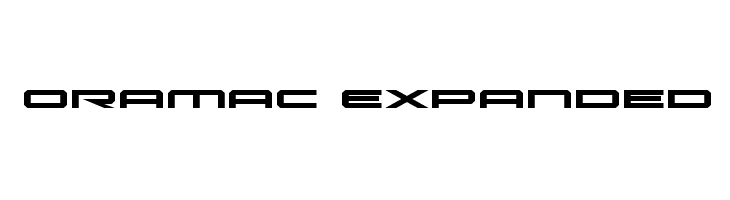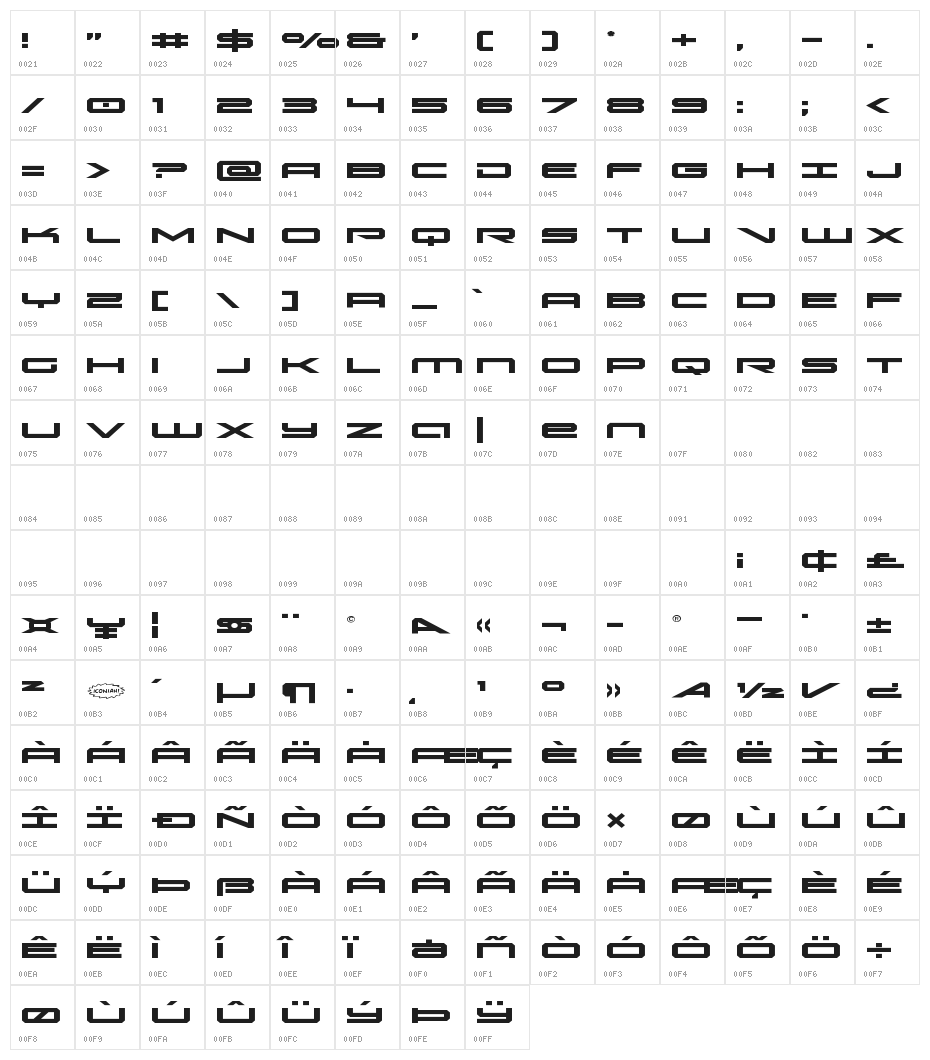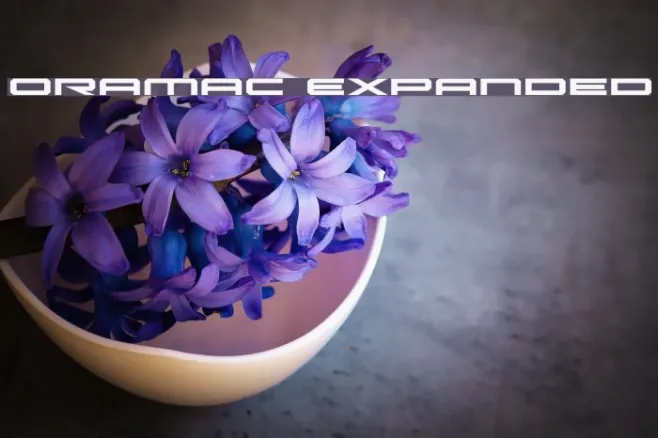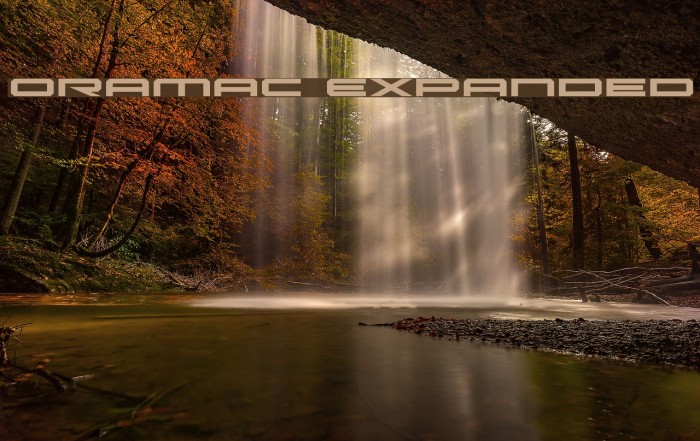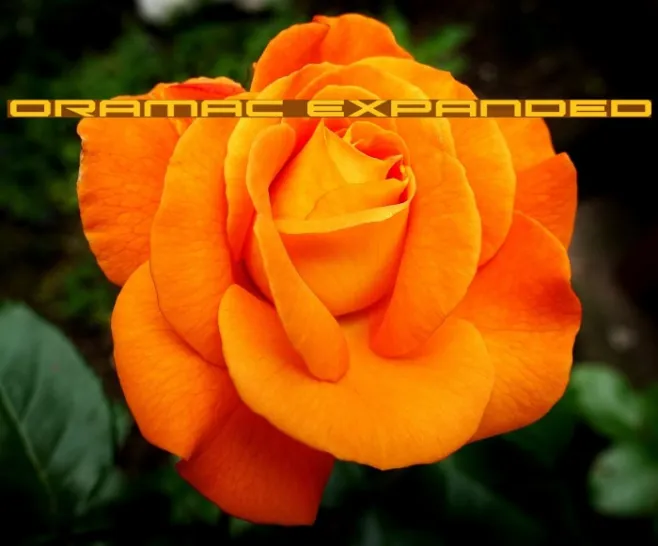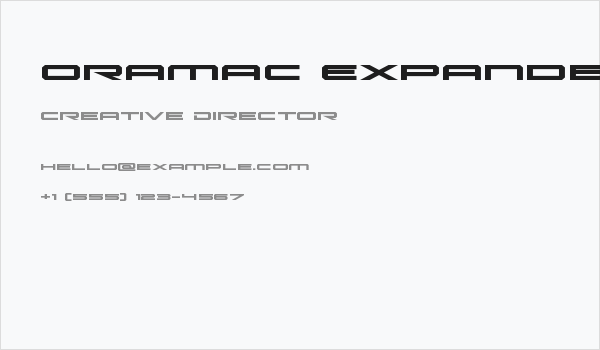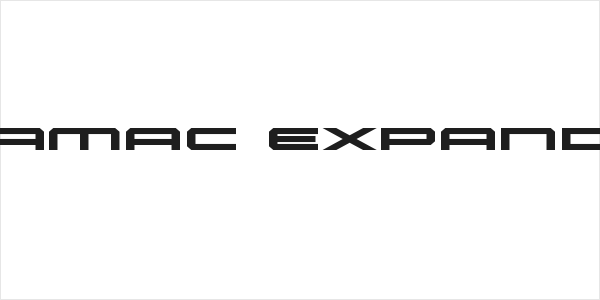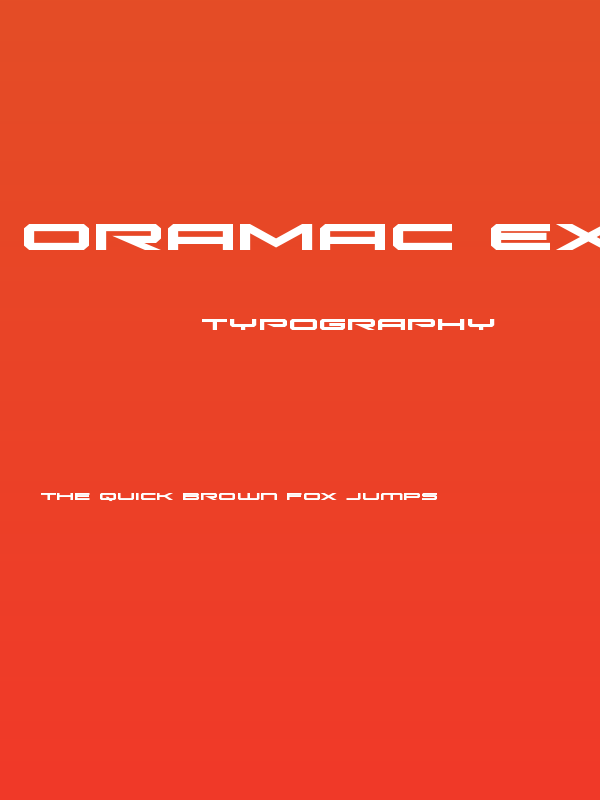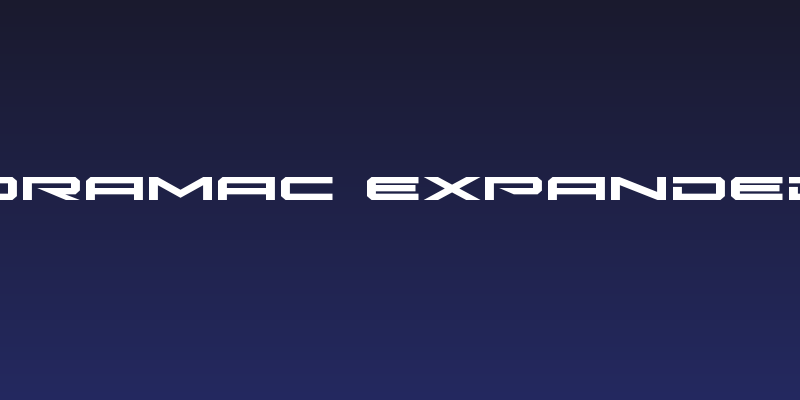
Oramac Expanded Font
Oramac Expanded Description
This font features a futuristic and geometric design with expanded letterforms. The characters are bold and have a distinct angular appearance, giving them a modern and tech-inspired look. The uppercase and lowercase letters maintain a consistent style, with sharp edges and a uniform width. The numerals and special characters complement the overall design, making it suitable for digital and print media. The font's clean lines and expanded width make it highly legible, even at smaller sizes, while its unique style ensures it stands out in any application.
| Use Case | Headlines, Logos, Digital Interfaces |
| Proposed Projects | Ideal for technology branding, sci-fi movie posters, video game titles, and digital interfaces. |